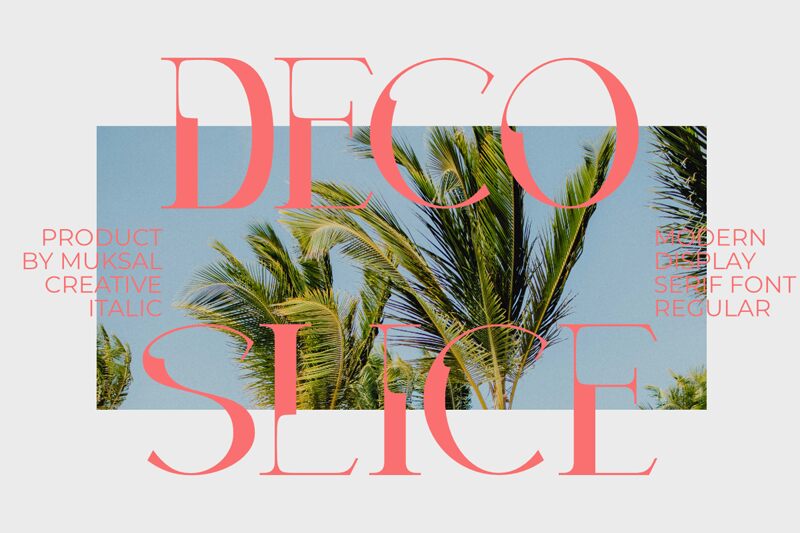
Decoslice font by Muksal Creative is a free serif font with an elegant and sophisticated appeal. With noticeable elements inspired by the art deco movement, the font manages to balance a refined classy aesthetic with stylish decorative elements and a modern appearance. Decoslice has a strong visual impact and contemporary versatility, offering an enjoyable creative experience to both the designer and reader.
When it comes to use cases, this font is great for branding, logos, business cards, and stationary design. It also works well for marketing materials including posters, flyers, brochures, and social media ads. Decoslice is great too for headlines and magazine covers, packaging design, and merchandise.